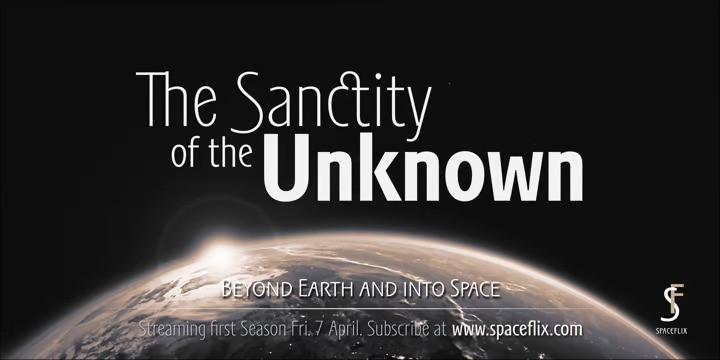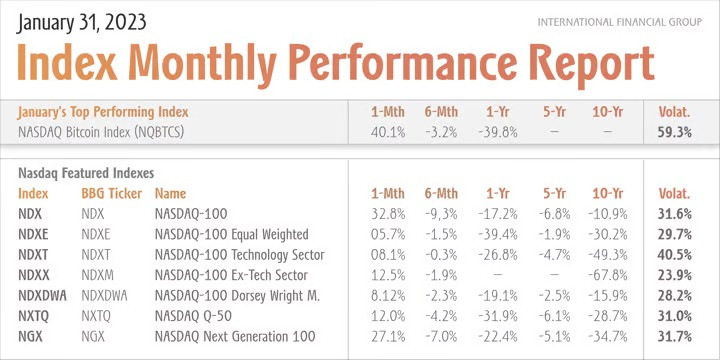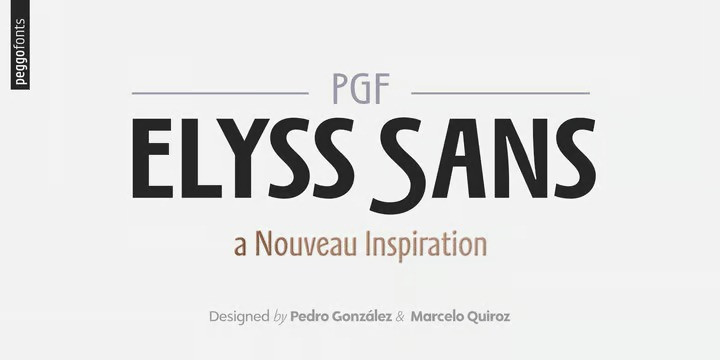
PGF Elyss Sans Font
PGF Elyss Sans Font is based on its previous family relative PGF Elyss Roman. With clean and modern lines, but preserving the original Roman style, created to be in labels, invitation, website design, digital graphics, book headlines & titles, brochures, newspaper and magazines design, logotypes, branding and corporate design and much more. In seven weights with more than 900 glyphs each, and ready for more than 200 languages.